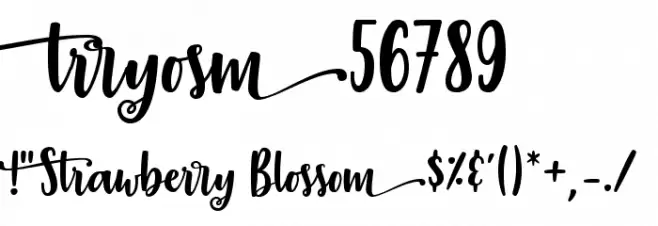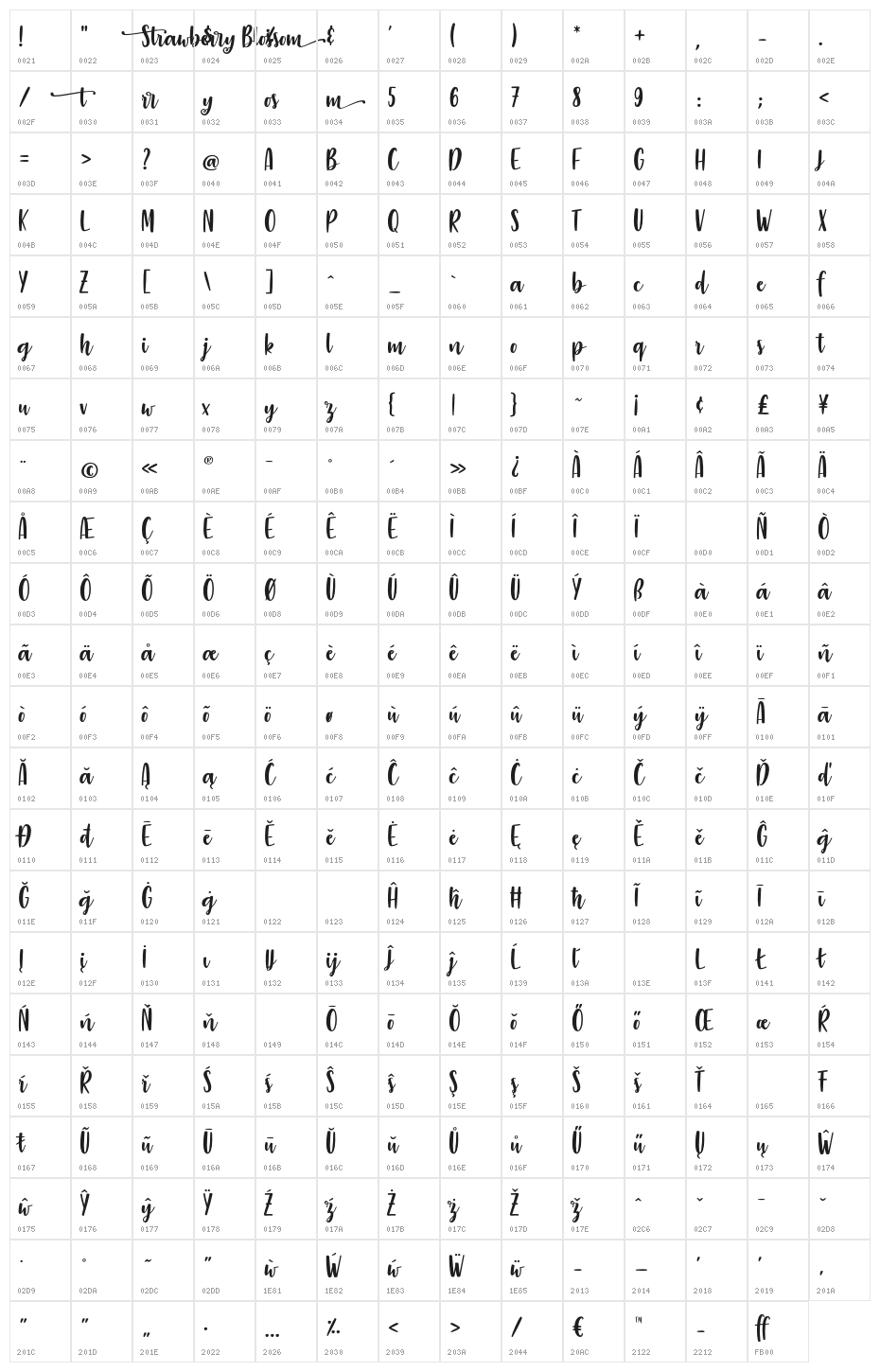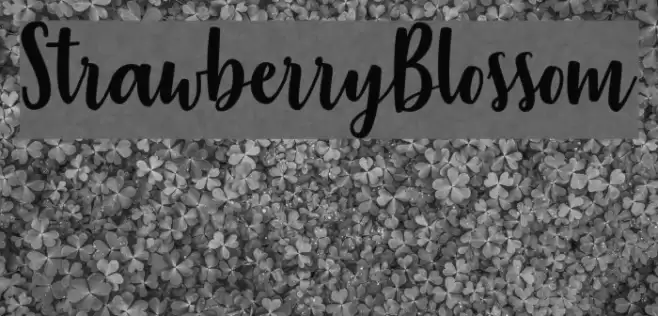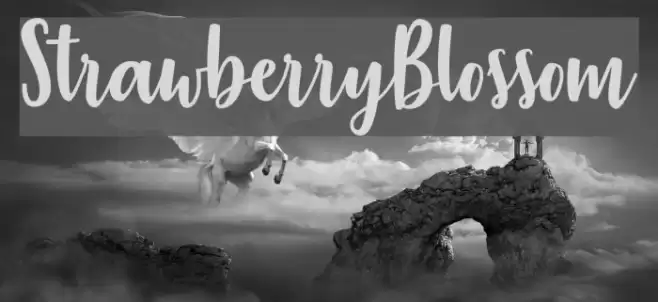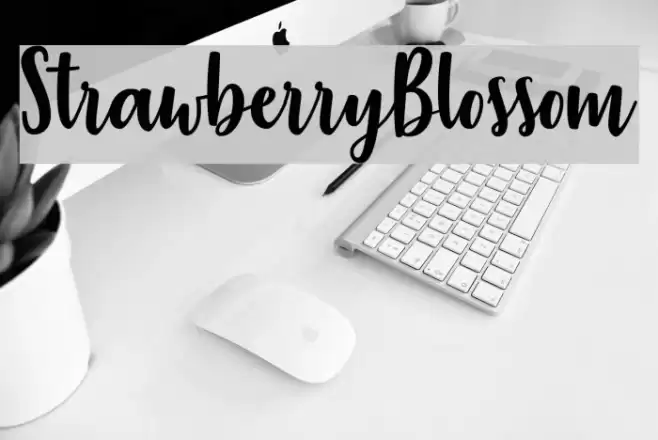
StrawberryBlossom Font
StrawberryBlossom Description
This font features a playful and flowing script style with a handwritten appearance. The letters are connected, giving it a smooth and continuous look, which adds to its charm and elegance. The uppercase letters are bold and slightly slanted, while the lowercase letters maintain a consistent flow with varying stroke widths. The numbers and special characters are designed to match the overall aesthetic, making it versatile for various design needs. The font's whimsical nature makes it perfect for creative projects that require a personal touch.
| Proposed Projects | Ideal for wedding invitations, greeting cards, branding, and social media graphics. |